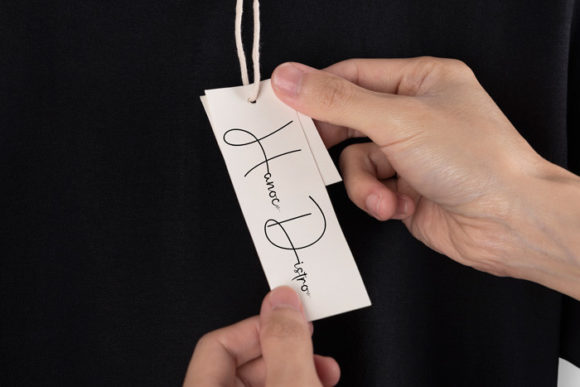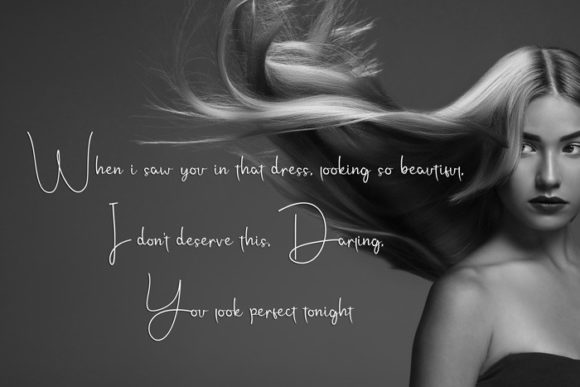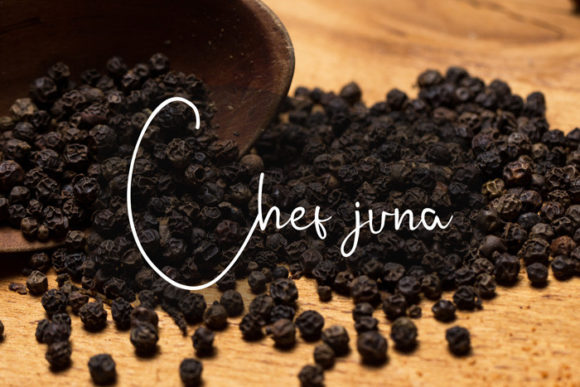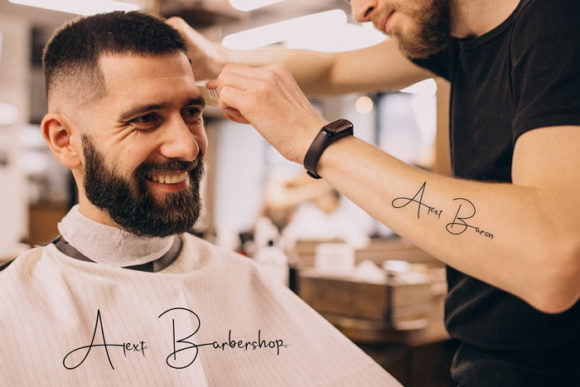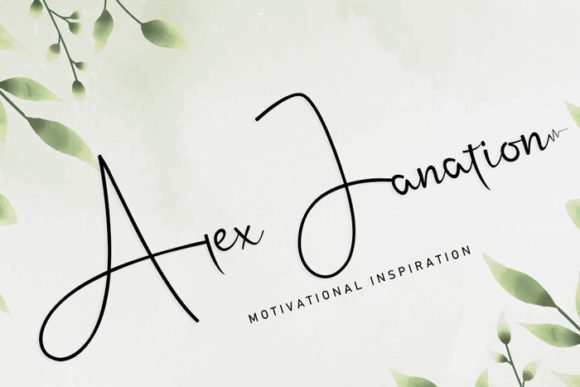
The Quest for the Perfect Font: Discovering Andilay
I still remember the frustration of scrolling through font after font, searching for the perfect one to bring my design project to life. As a designer, I’ve had my fair share of late nights, sipping coffee and browsing through font libraries, trying to find that one font that captures the essence of my client’s vision. And then, I stumbled upon Andilay – a lovely and timeless handwritten font that has become my go-to for creating eye-catching logos, branding, and quotes.
An Honest Review of Andilay
What I Love About Andilay ✨
- 💫 Timeless and elegant handwritten style that adds a touch of sophistication to any design
- ✅ PUA encoded for easy access to glyphs and swashes, making it a breeze to customize
- 🌈 Versatile and suitable for a wide range of design projects, from logos and branding to quotes and social media graphics
- 👍 Highly legible, even at small font sizes, making it perfect for body text and captions
While Andilay is an amazing font, there are a few things to keep in mind:
- 🤔 Some users may find the font a bit too ornate for very minimalist designs
- ⚠️ The font may not be suitable for very long blocks of text, as it’s designed to make a statement
The Story Behind Andilay
Andilay was designed with the intention of creating a timeless and elegant handwritten font that would add a touch of sophistication to any design. The designer aimed to create a font that would be versatile and suitable for a wide range of design projects, from logos and branding to quotes and social media graphics.
A: PUA (Private Use Area) encoding allows font users to access glyphs and swashes easily, making it a convenient feature for designers.
Q: Is Andilay suitable for body text and long blocks of text?
A: While Andilay is highly legible, it’s designed to make a statement, so it may not be the best choice for very long blocks of text.